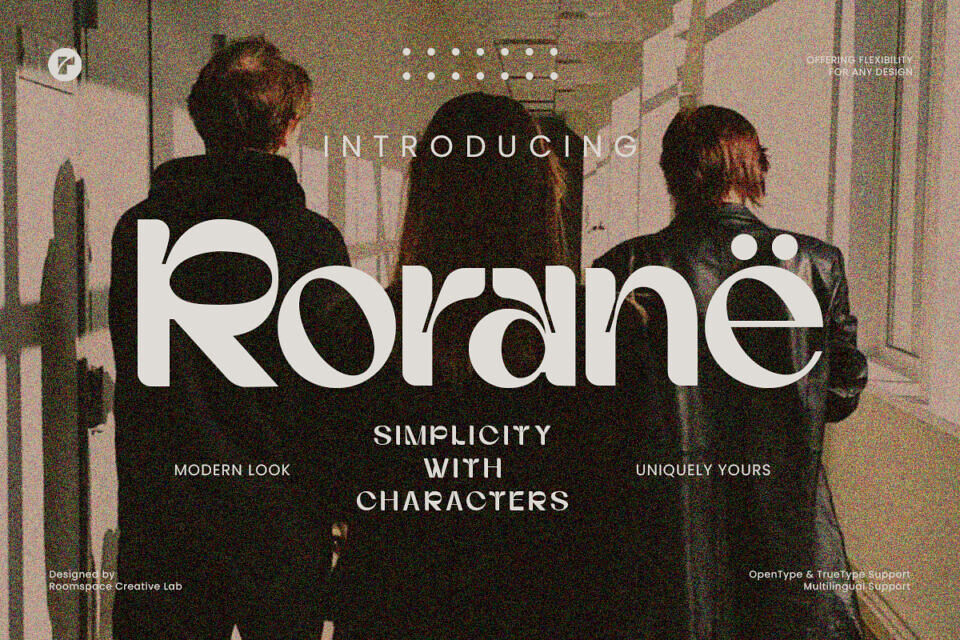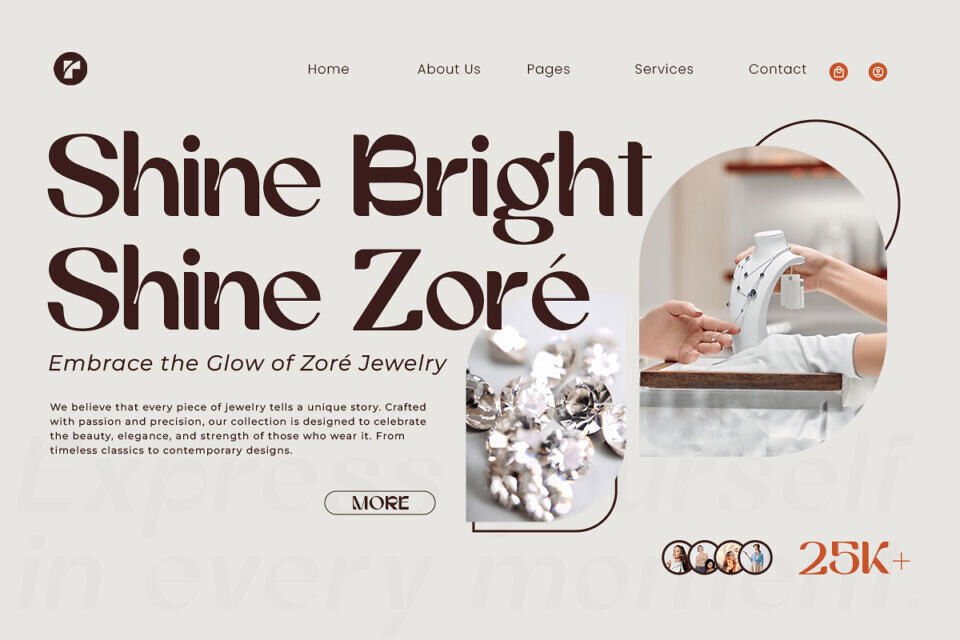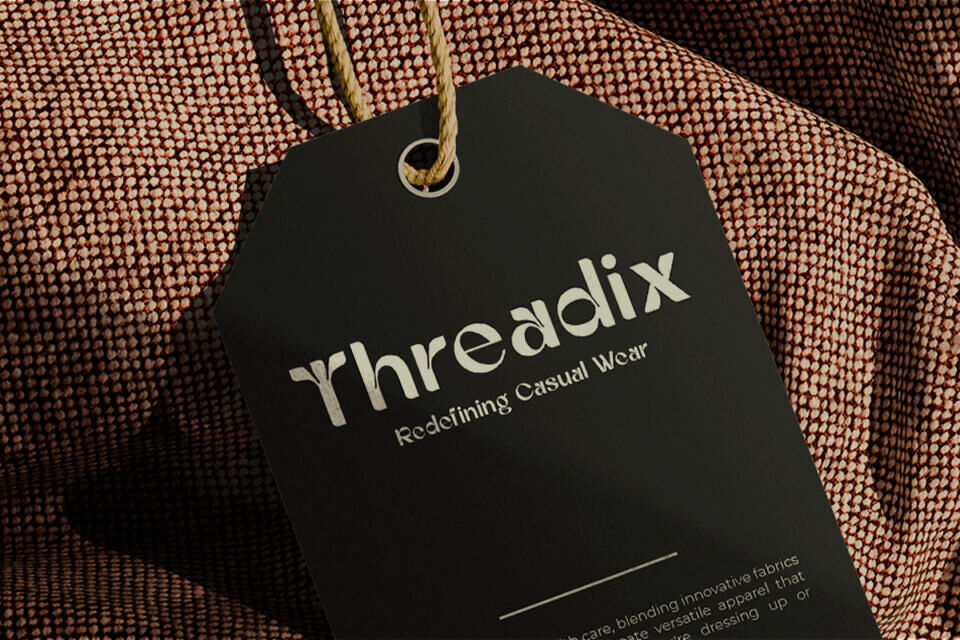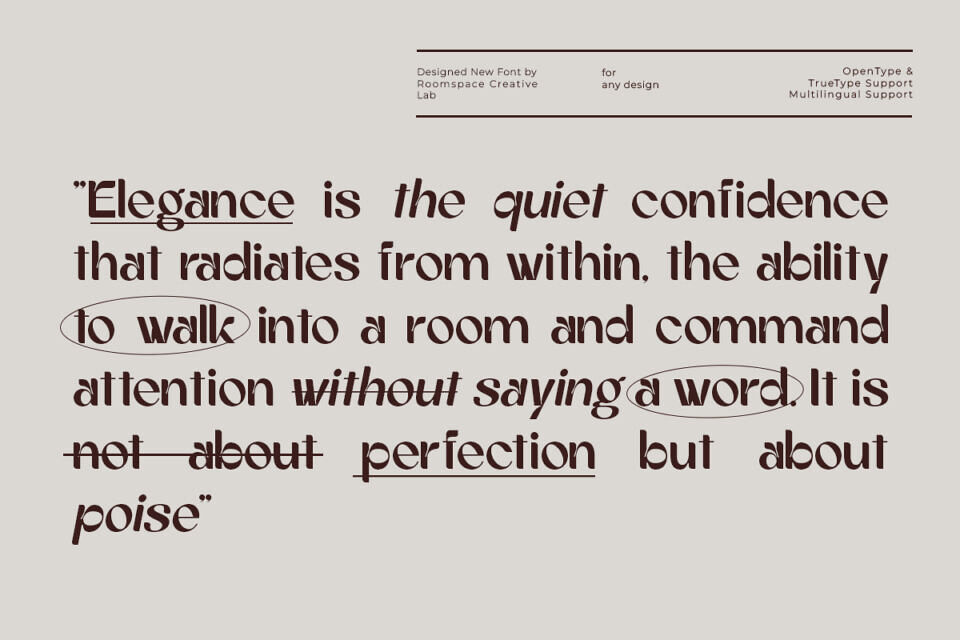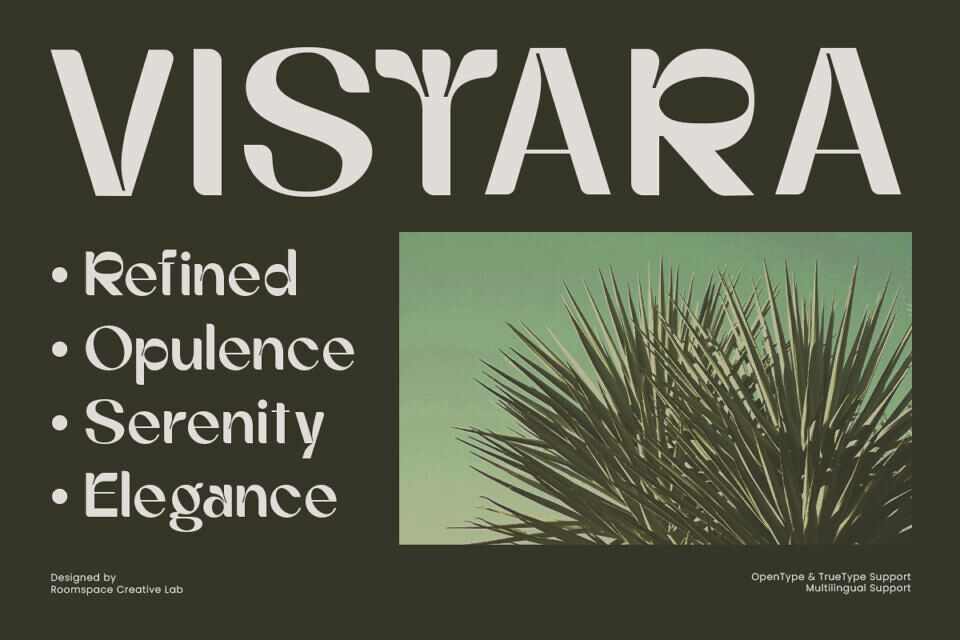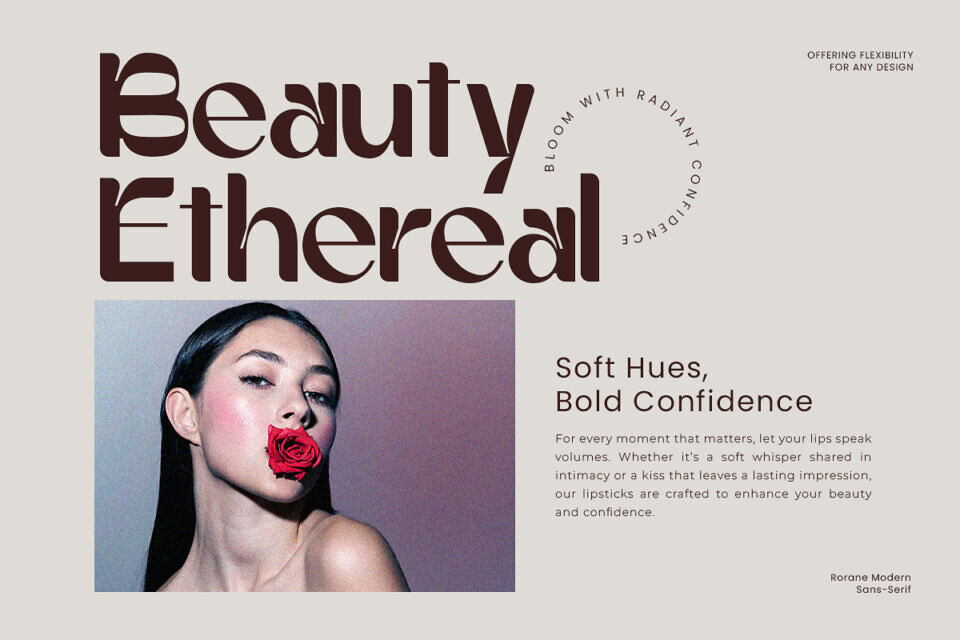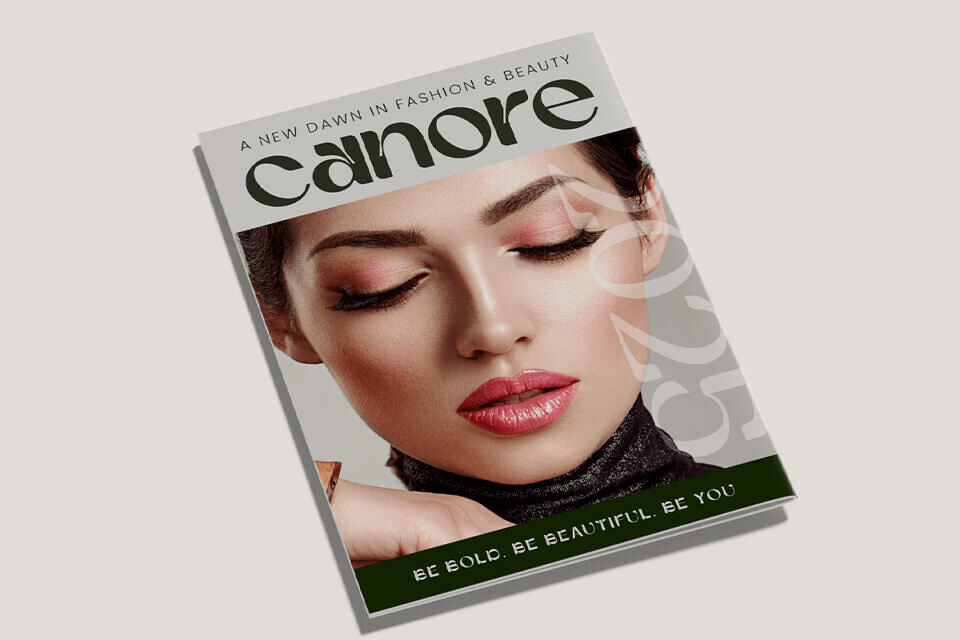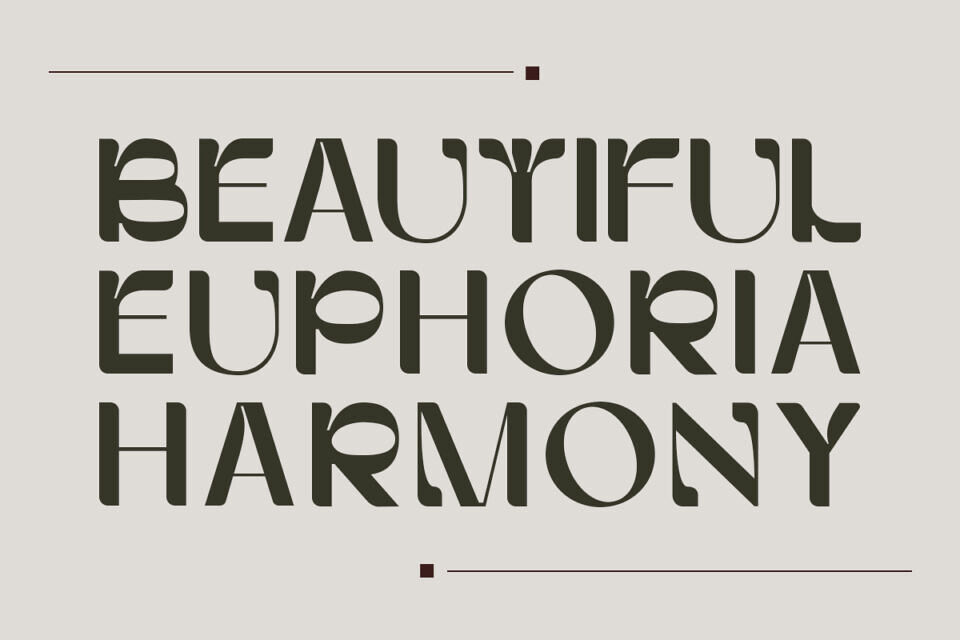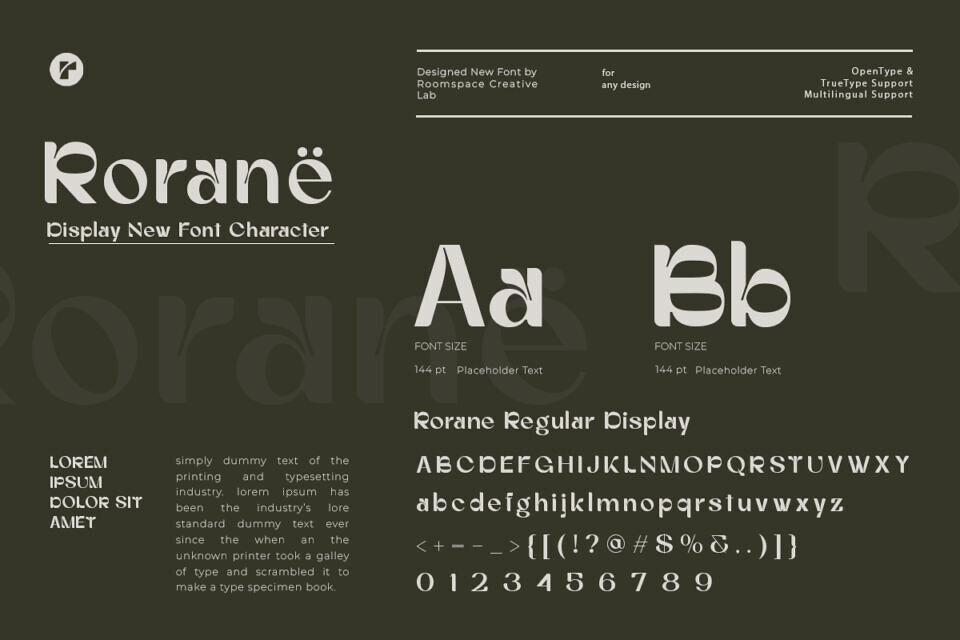
Rorane Font
Rorane is a modern sans-serif font that’s uniquely yours. Rorane is clean, creative, and just the right touch of bold without being overwhelming. Its smooth curves and subtle details make it approachable and elegant at the same time. Perfect for adding a fresh and modern touch to logos, headings, packaging, and modern brands, Rorane fits effortlessly into any project.
Whether you’re designing magazine headings or creating playful, standout designs for playful brands, Rorane is versatile enough to handle it all. It’s a font that feels like a trusted companion for your creative journey, offering simplicity with character!